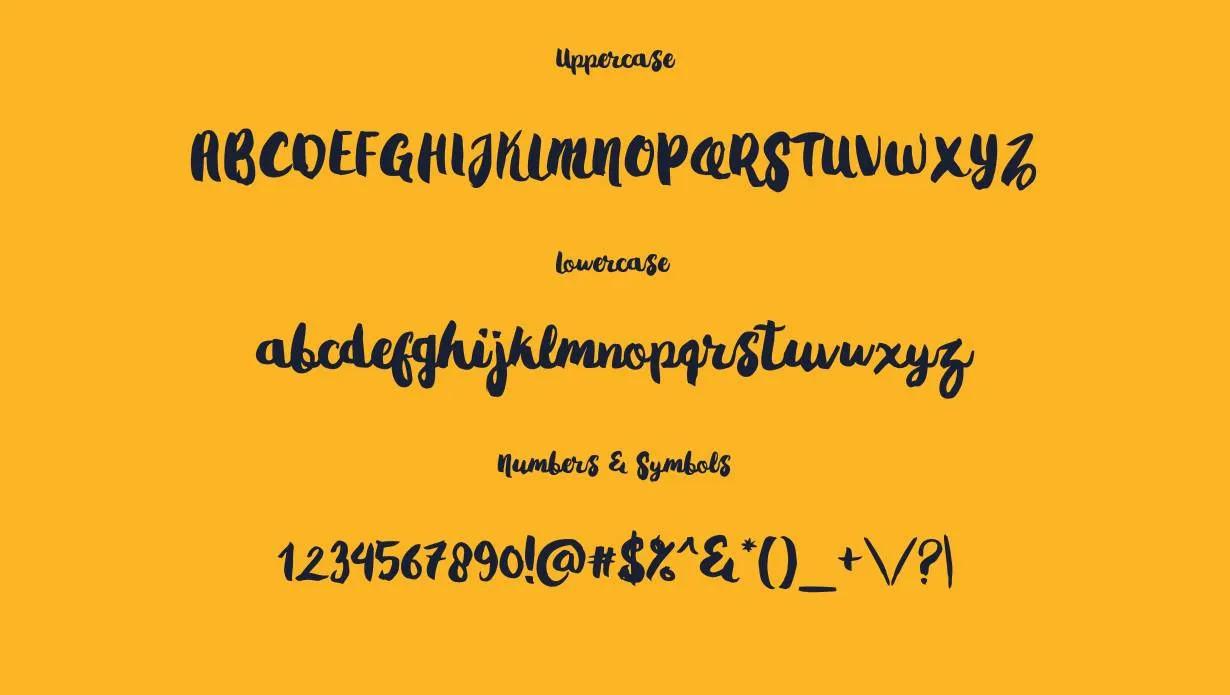
Combining elegance and modernity with its clean and sophisticated appearance, the Gradies font is commonly used in branding, logos, or any design seeking a refined style.
| Name | Gradies Font |
| Designer | Ferdiansyah |